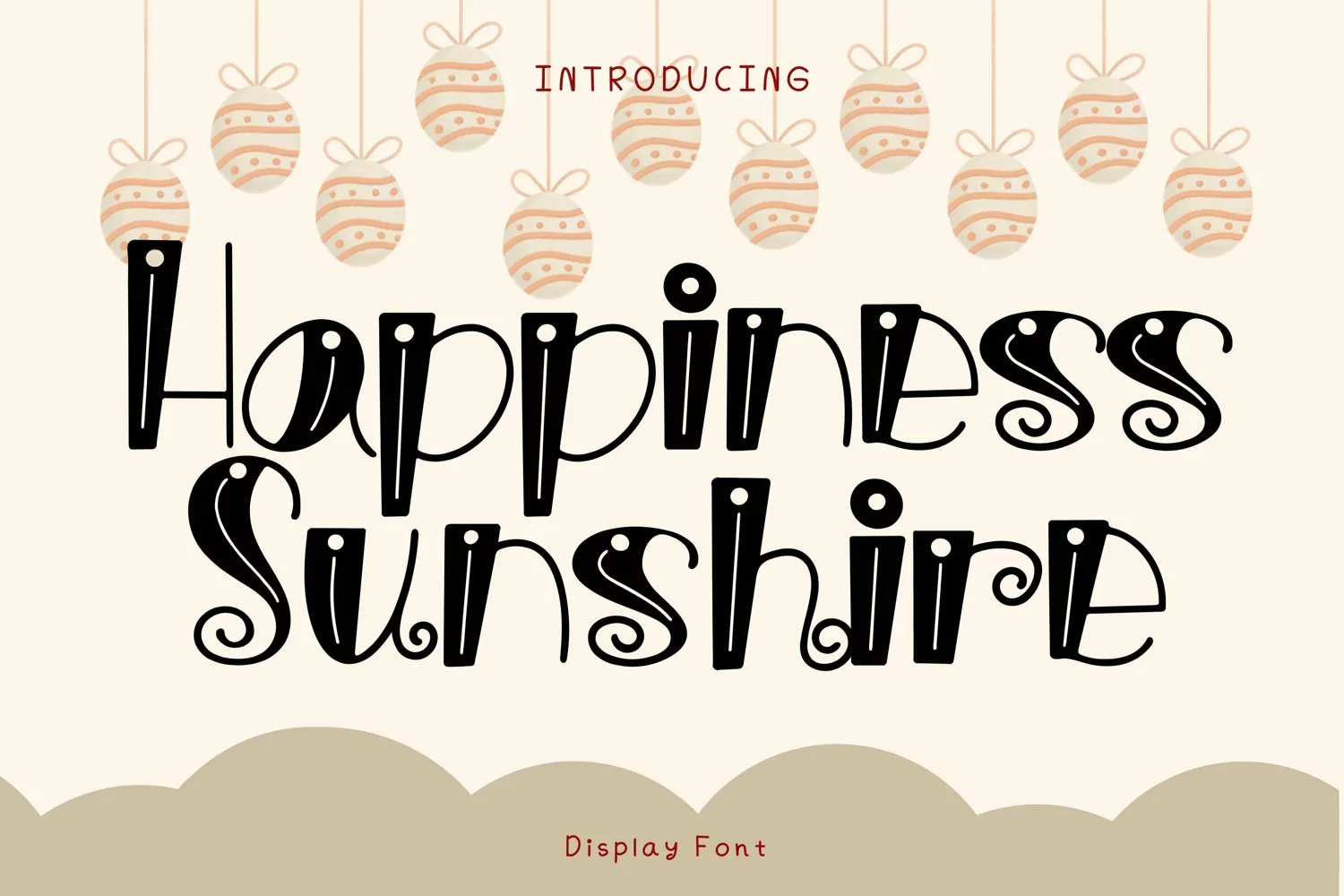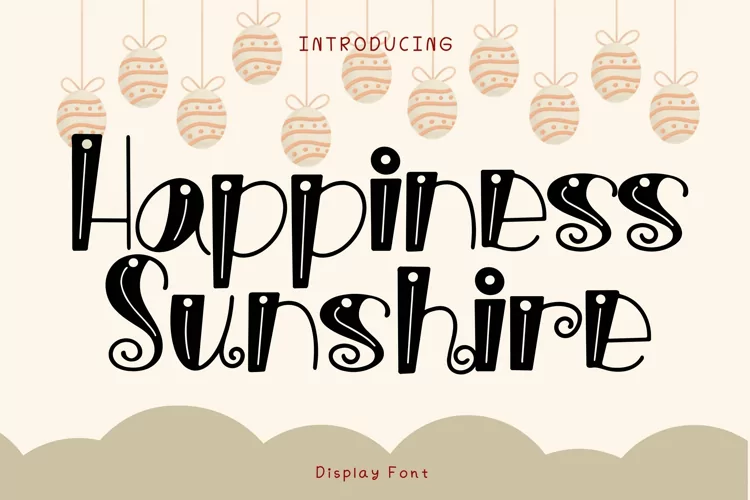
Happiness Sunshine Style
HappinessSunshine
Happiness Sunshine Style is a whimsical and clean handwritten font. It can easily be matched to an incredibly large set of projects, so add it to your creative ideas and notice how it makes them stand out!